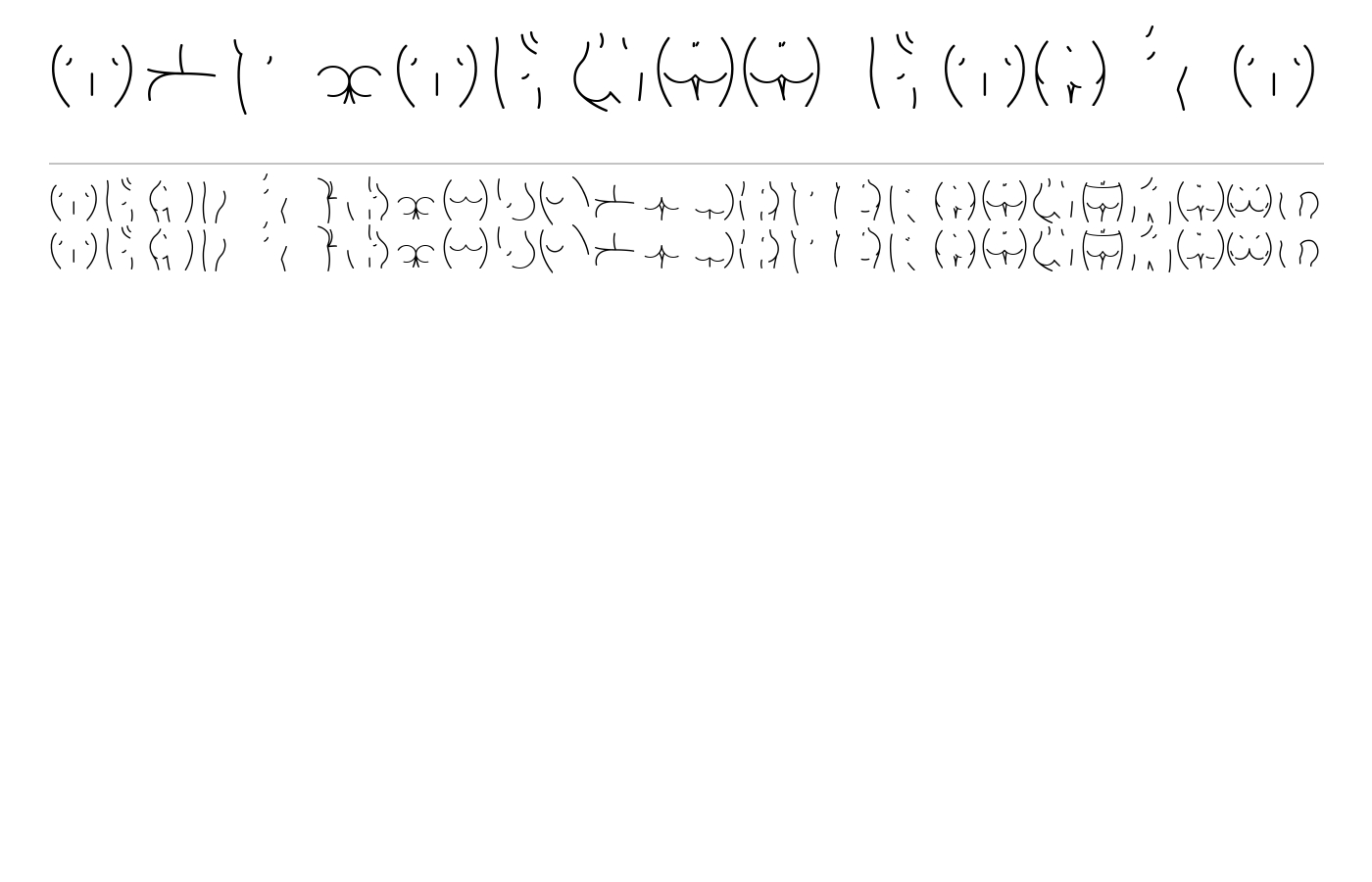
Alphabutt Base A is a highly unconventional, playful font characterized by its thin, delicate strokes and abstract, symbolic shapes that do not follow traditional letterform design. Its whimsical and quirky style makes it more suited for artistic or experimental projects where a unique visual identity is desired rather than conventional readability. This font works best in creative contexts like graphic art, posters, or brand elements seeking to capture attention with a distinctly unusual, avant-garde feel.
Alphabutt Base A Font
About Alphabutt Base A Font